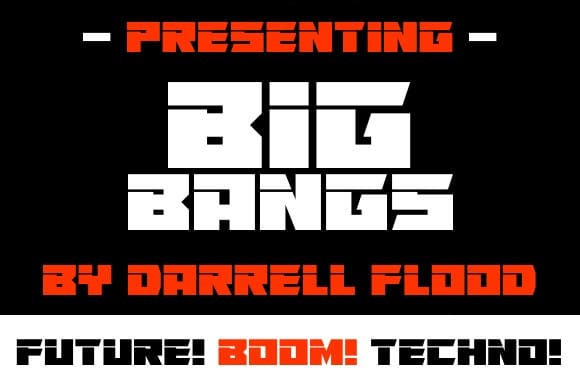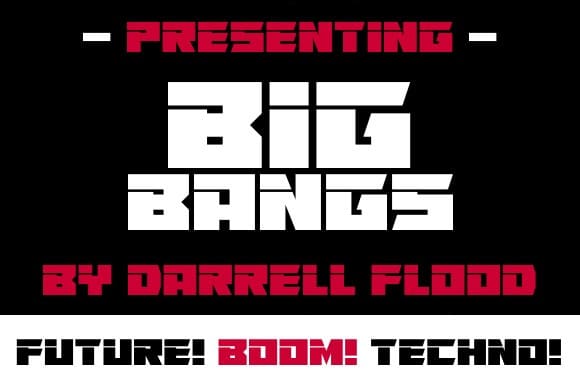
Big Bangs Font
Big Bangs Font, A robot-like futuristic font in a slick science fiction style. Perfect for alien encounters, space explorations, cyborg invasions and general high tech use!